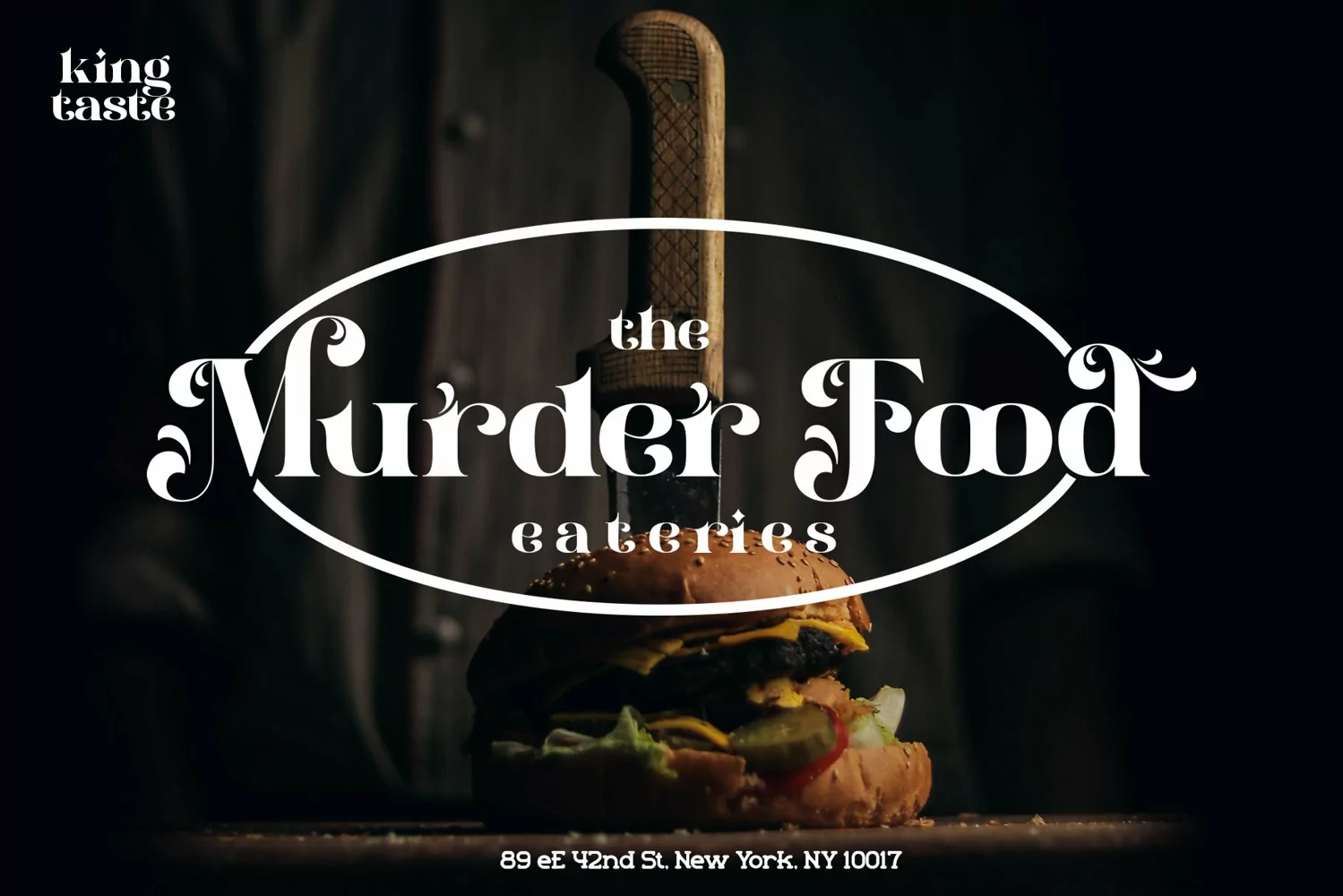
Bellamind
This pair was inspired by vintage poster at music store that i saw few weeks ago, it was crafted by hand specially to add natural handmade feeling in its brand identity than i make it clean with pentool.
Opentype features
Bellamind font has 219 character set included.
This font is very good for design logo, labels, packaging product, invitations, advertising and others. This font will make your design authentic, unique and good looking with modern calligraphy style.
If you're looking for unique serif decorative font, this item is a great choice to make your design looks great and unique.